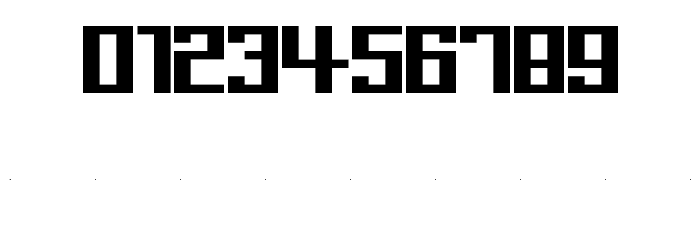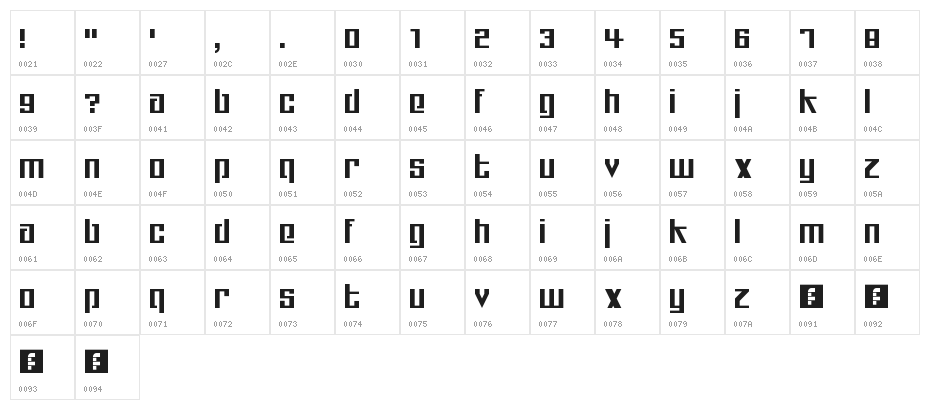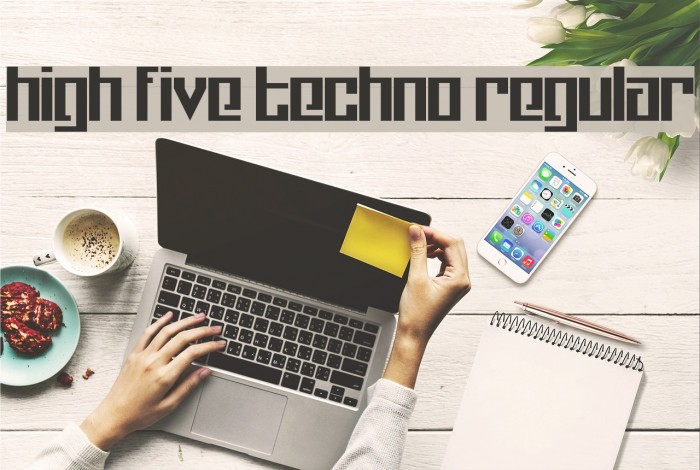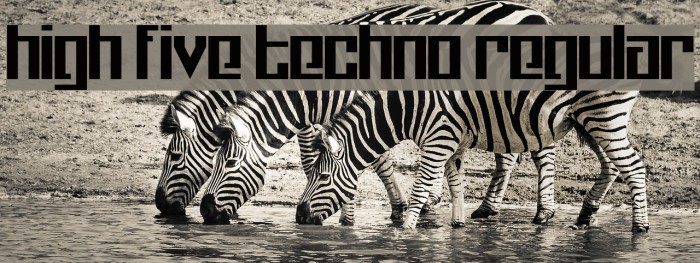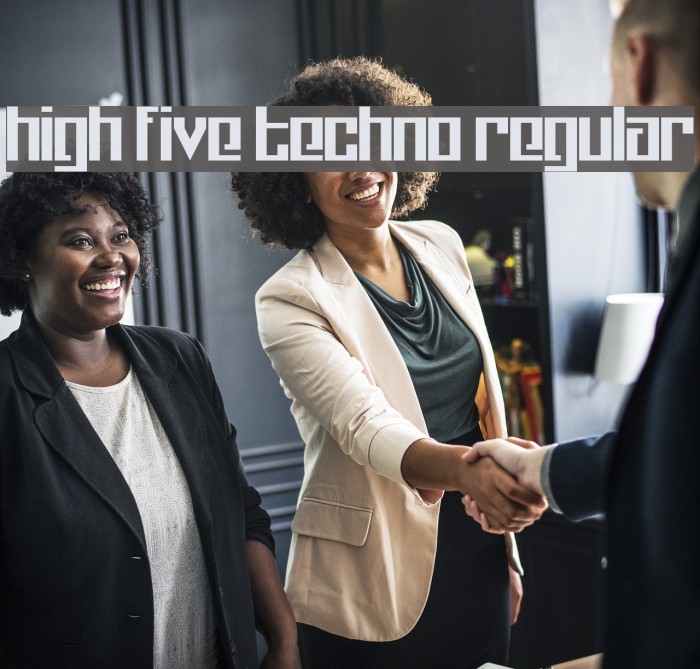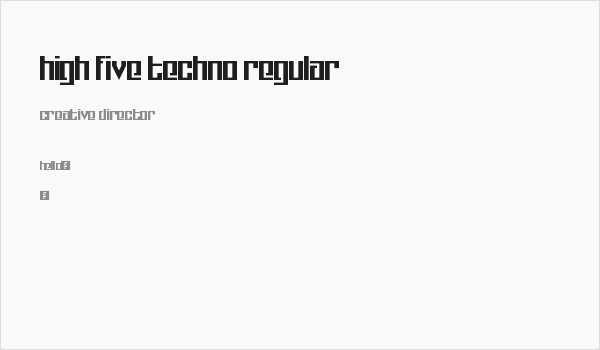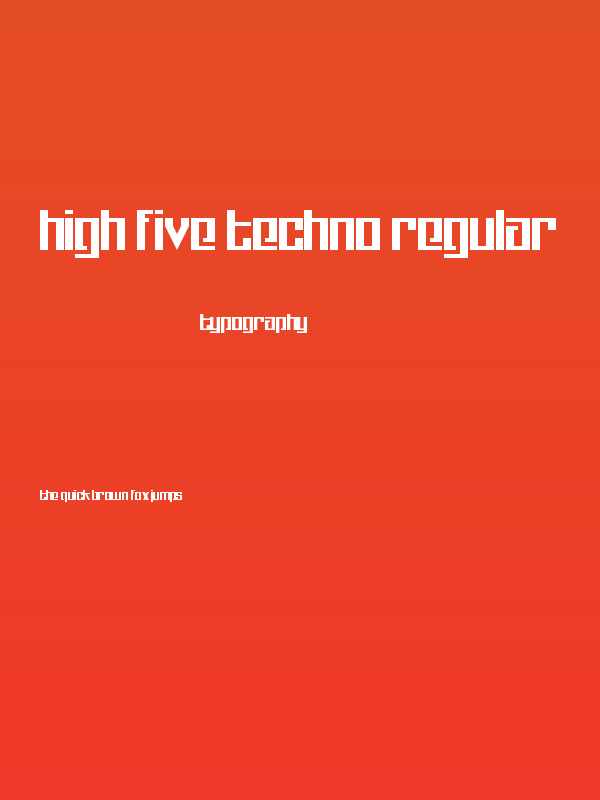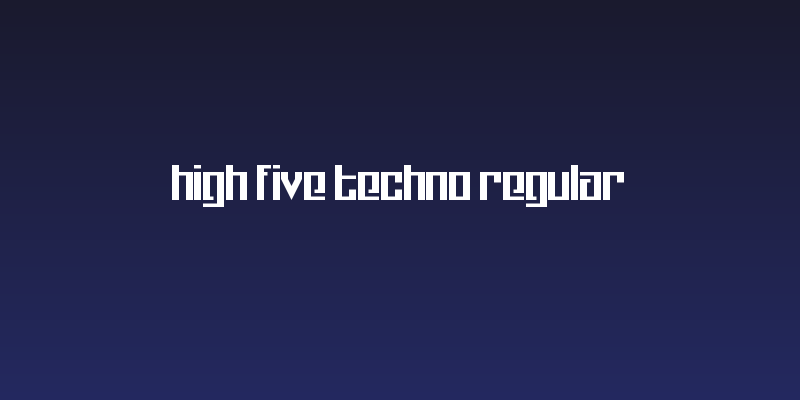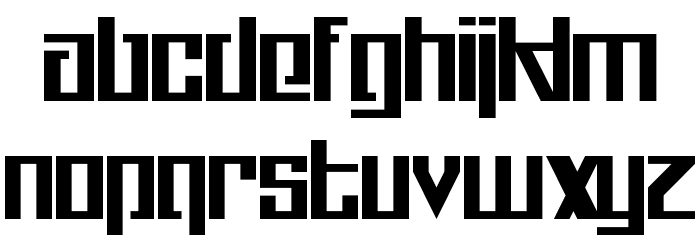
High Five Techno Regular Font
High Five Techno Regular Description
This font features a bold, geometric design with a distinctly modern and futuristic aesthetic. The characters are constructed with sharp angles and straight lines, creating a sense of precision and technological advancement. The uppercase and lowercase letters maintain a consistent height, contributing to a uniform appearance. The numerals and special characters follow the same design principles, ensuring cohesion across all glyphs. This font's strong visual impact makes it ideal for projects that require a contemporary and edgy look.
| Proposed Projects | Ideal for technology branding, digital media, video game titles, and sci-fi themed projects. |